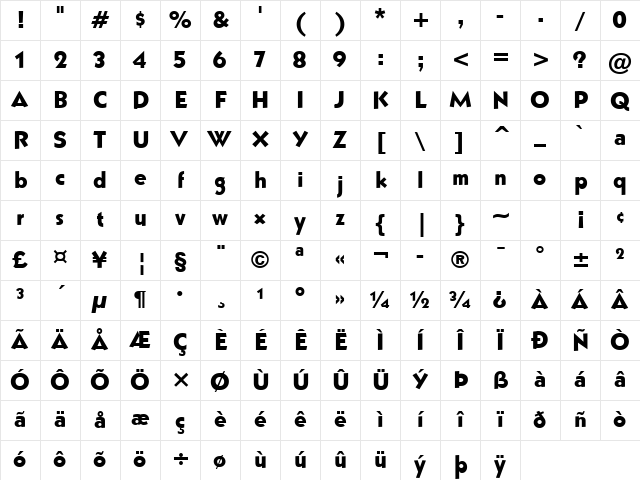
Bully Normal
Complete Bully Normal glyph index. Displaying only characters natively supported by Bully Normal font.
Design Context for Bully
Bully is a composed and adaptable typeface that performs quietly and consistently across a wide range of design contexts.